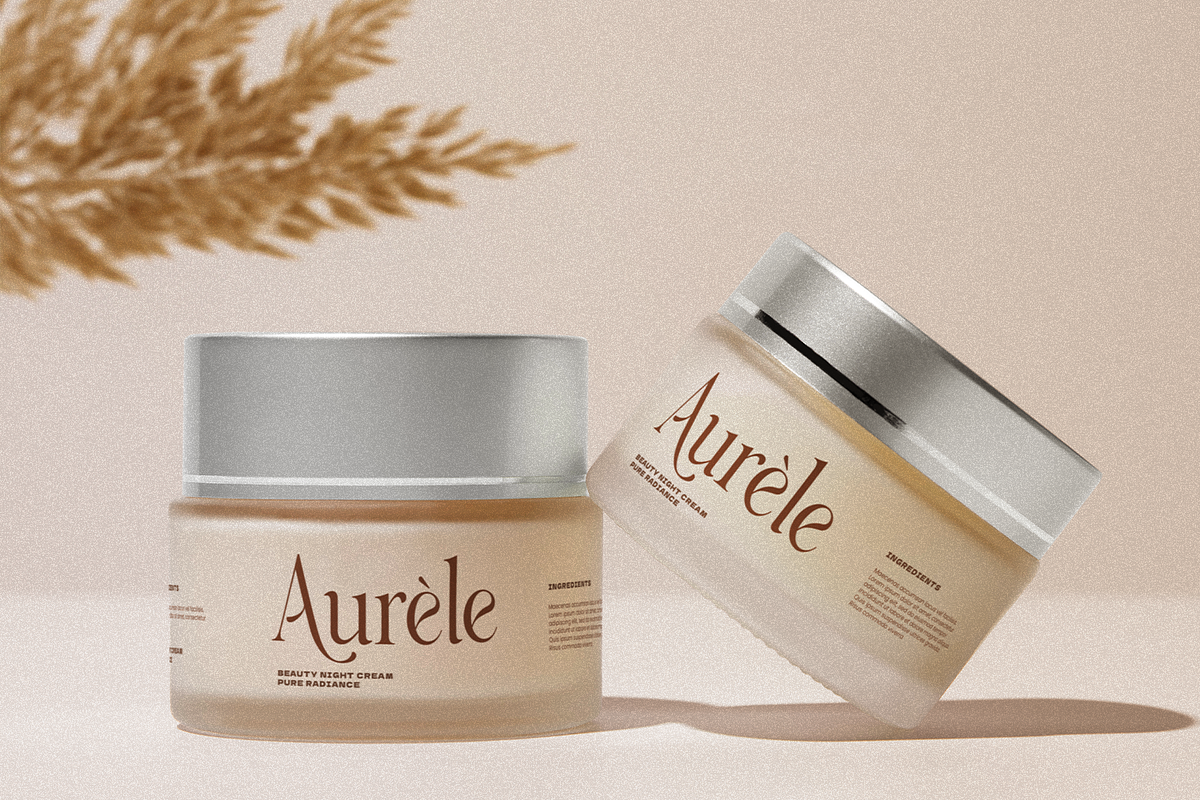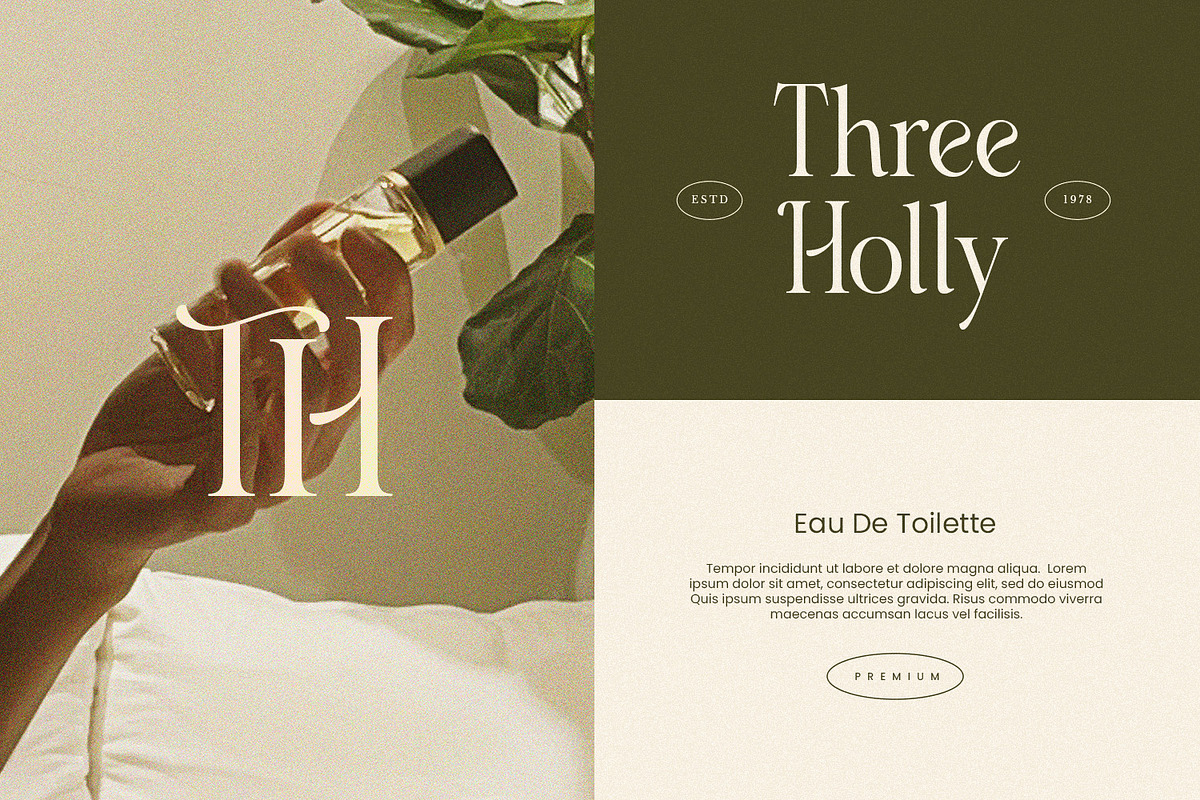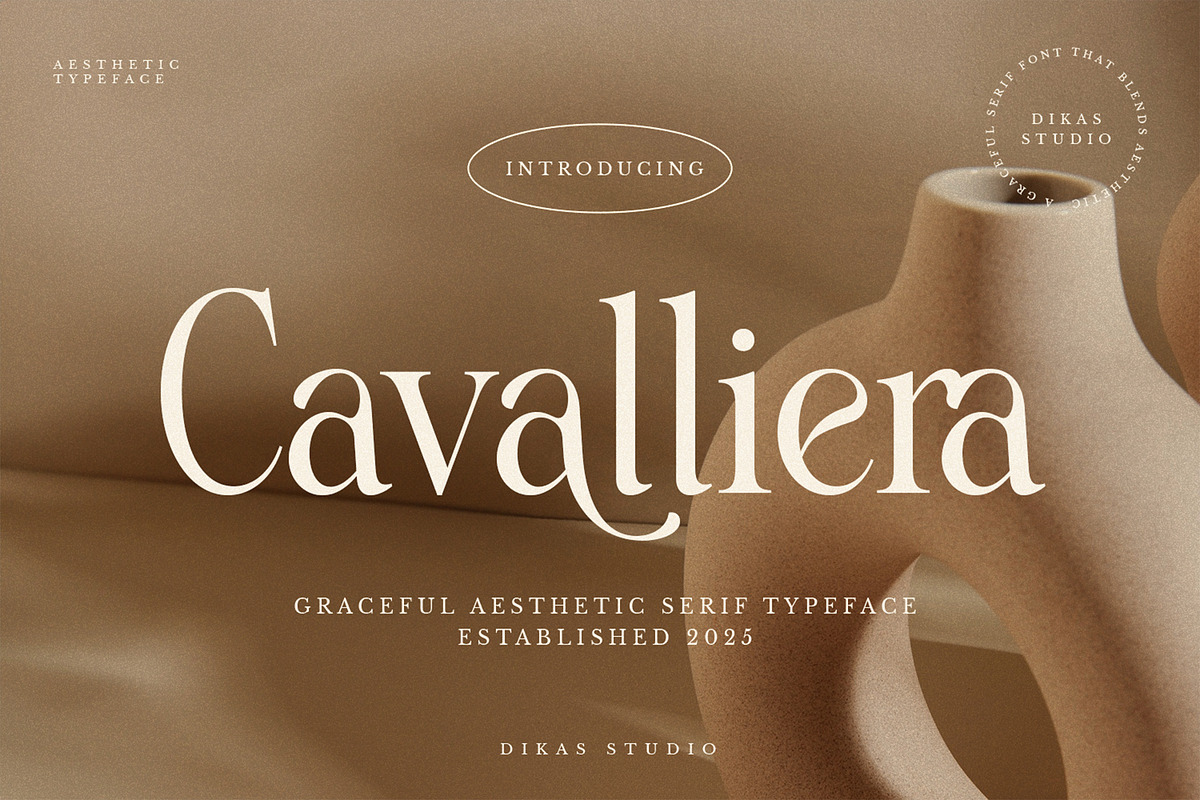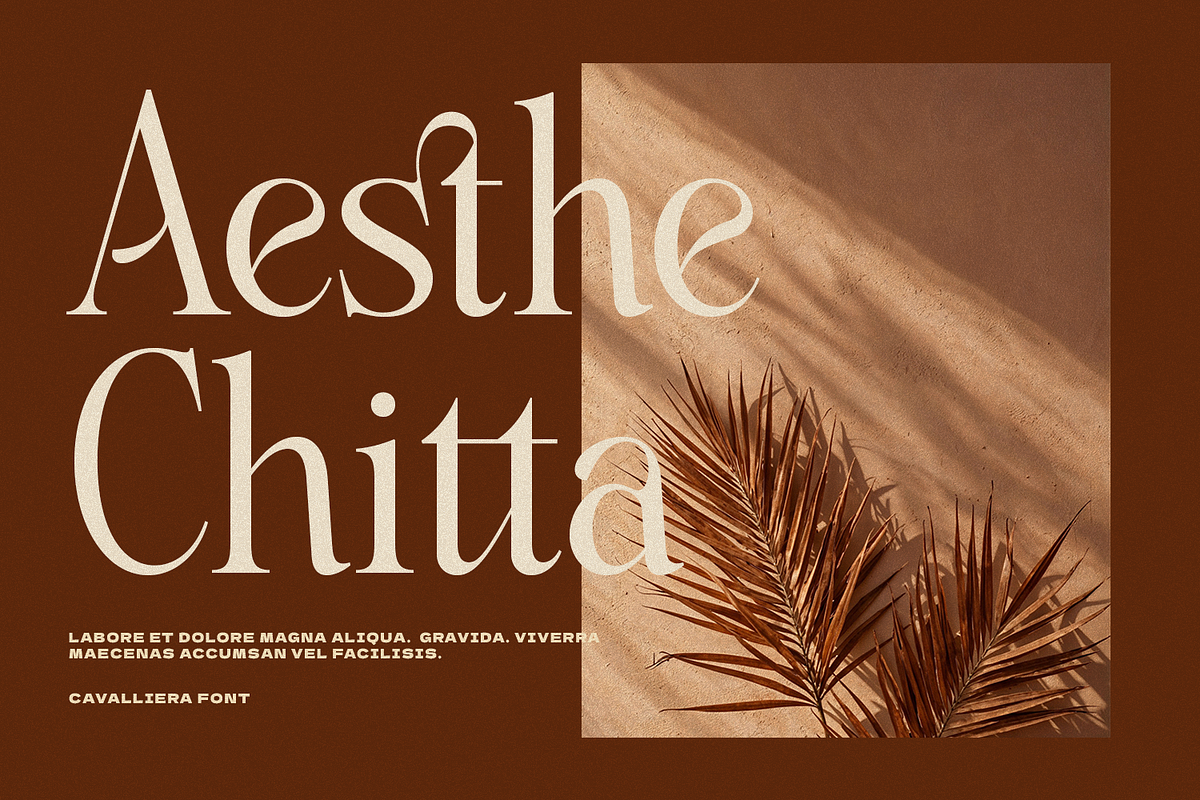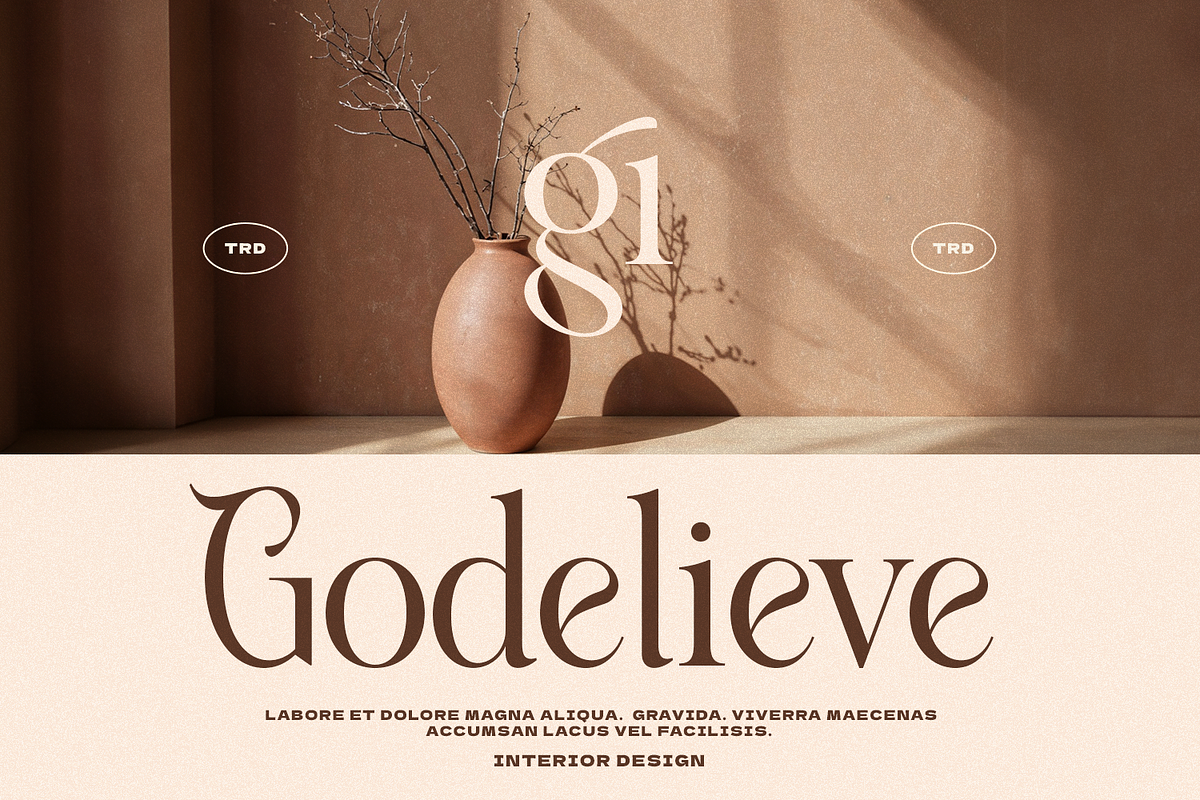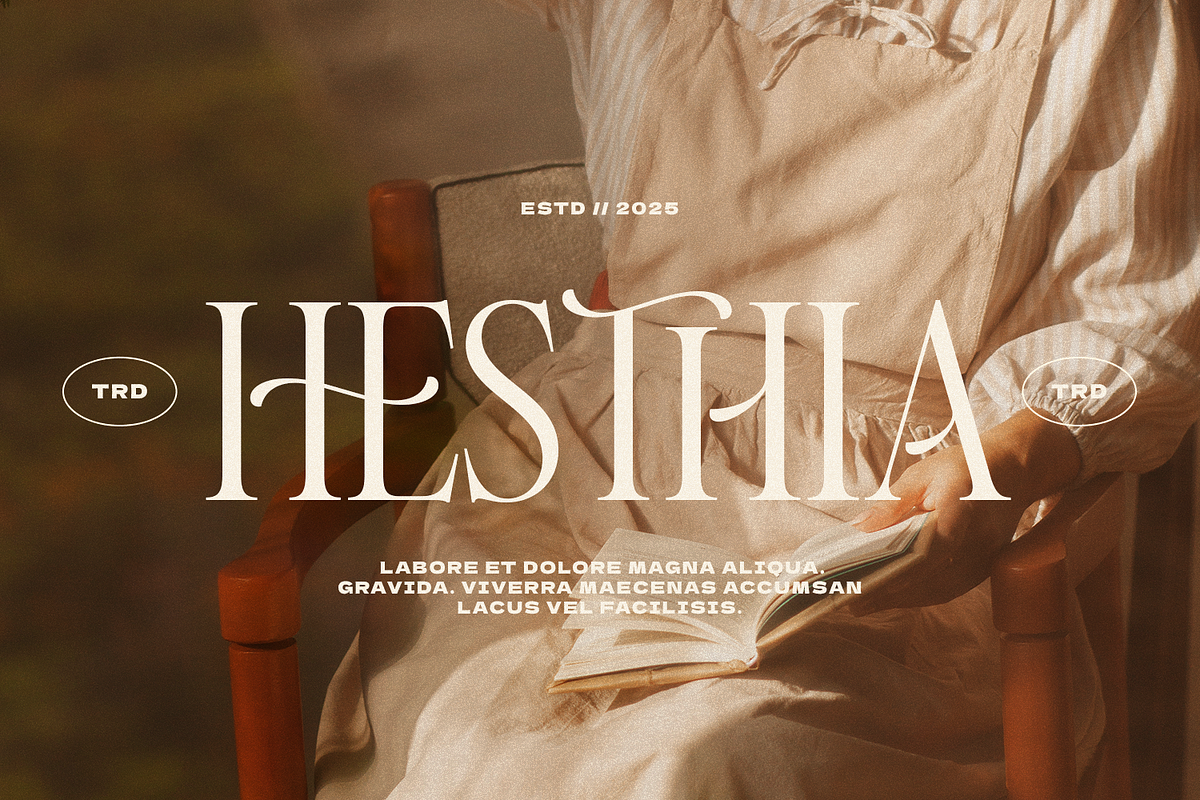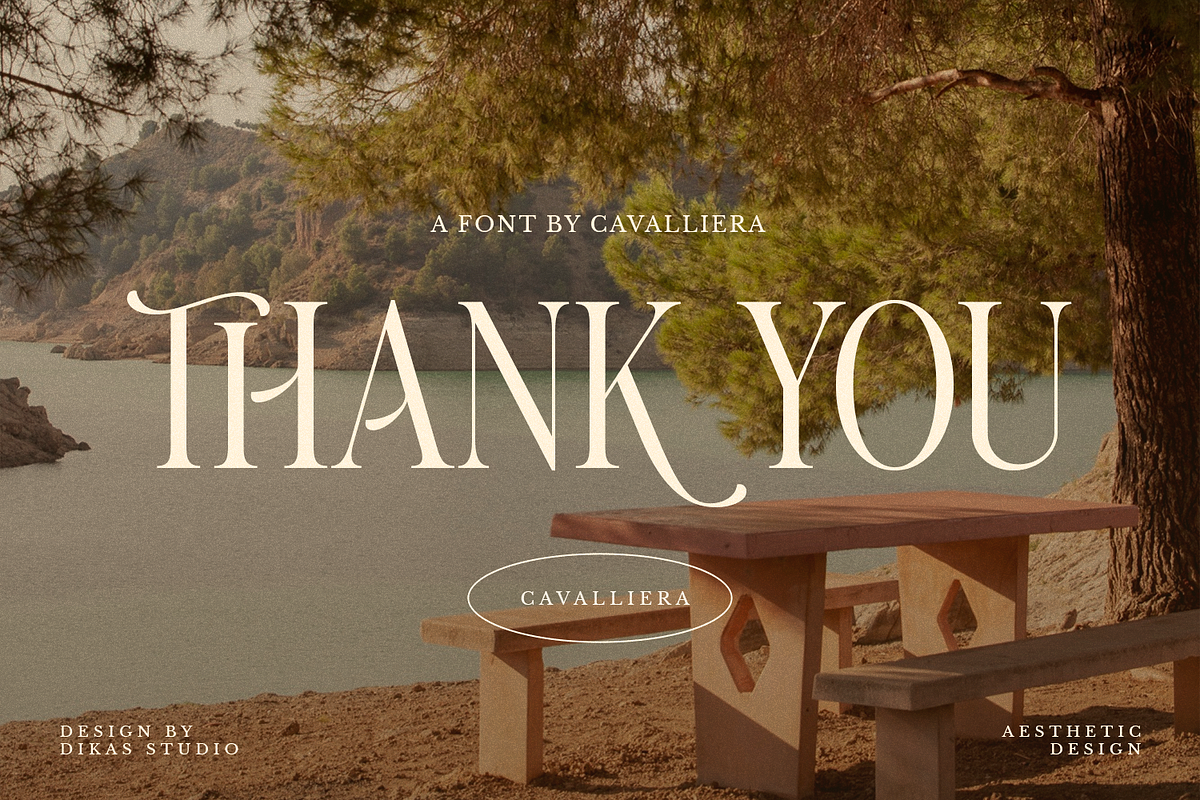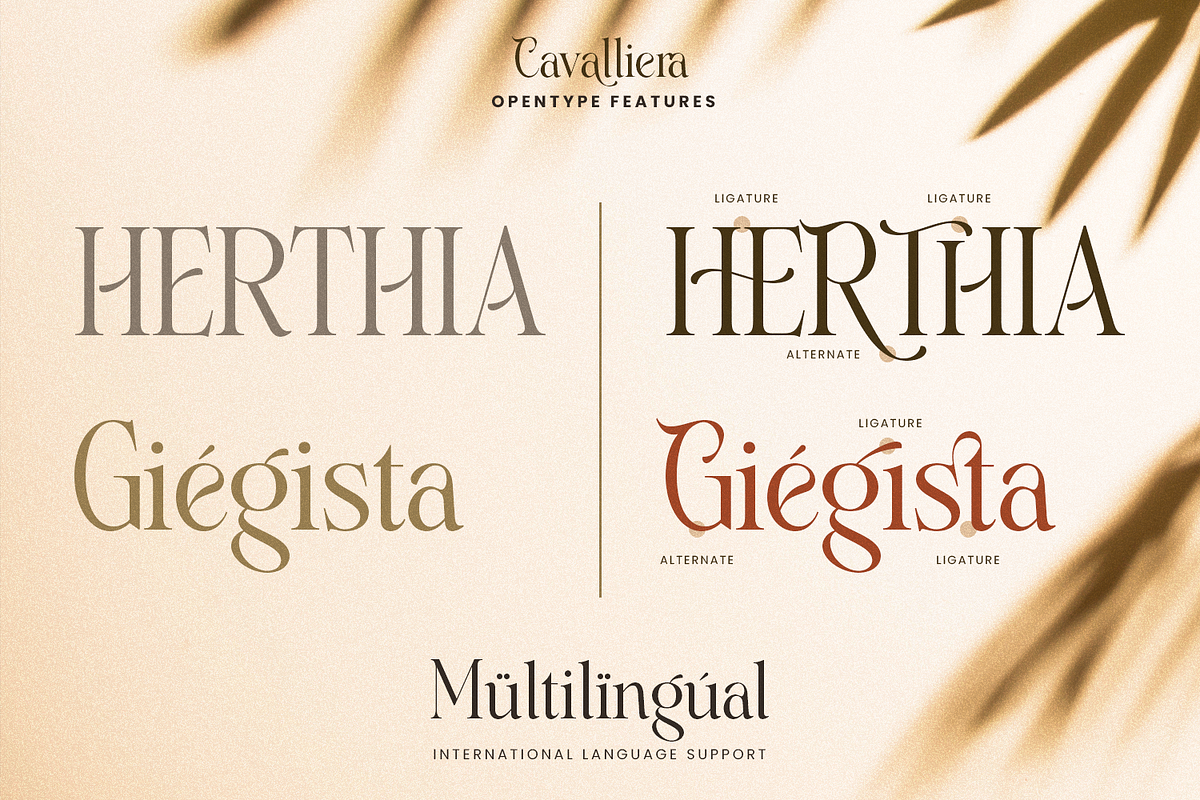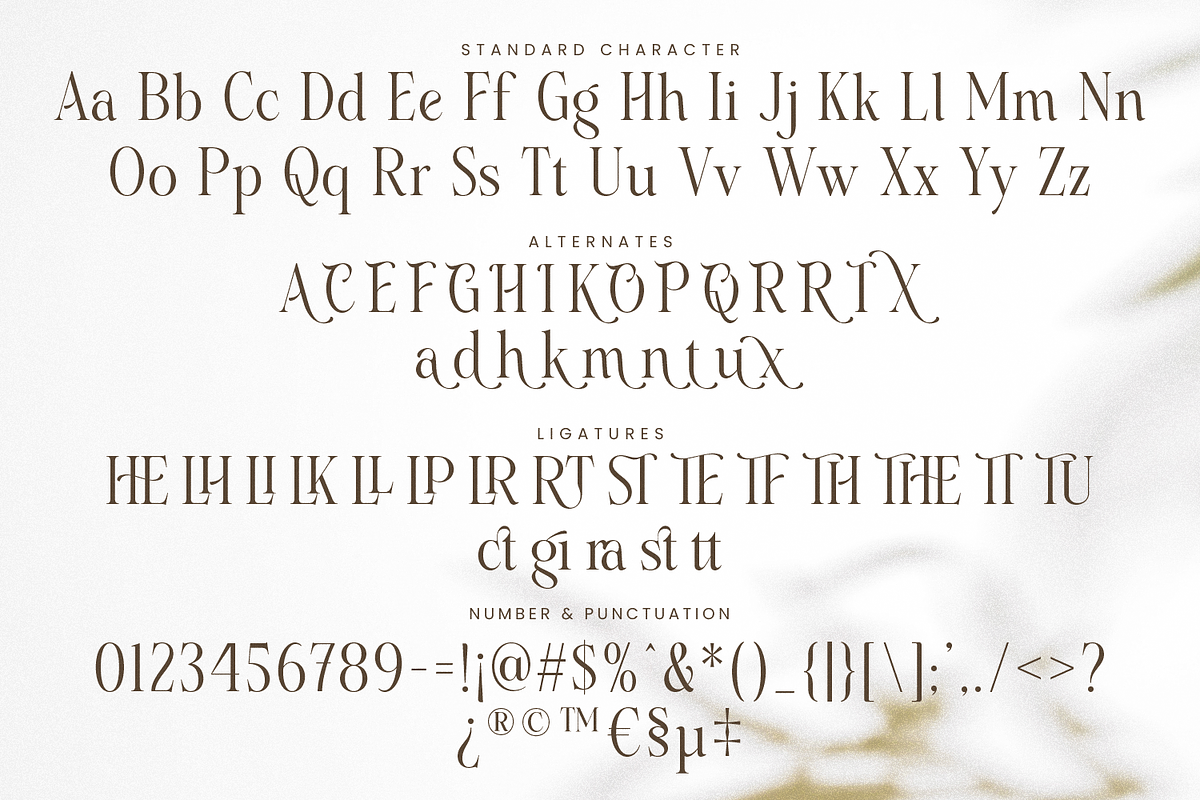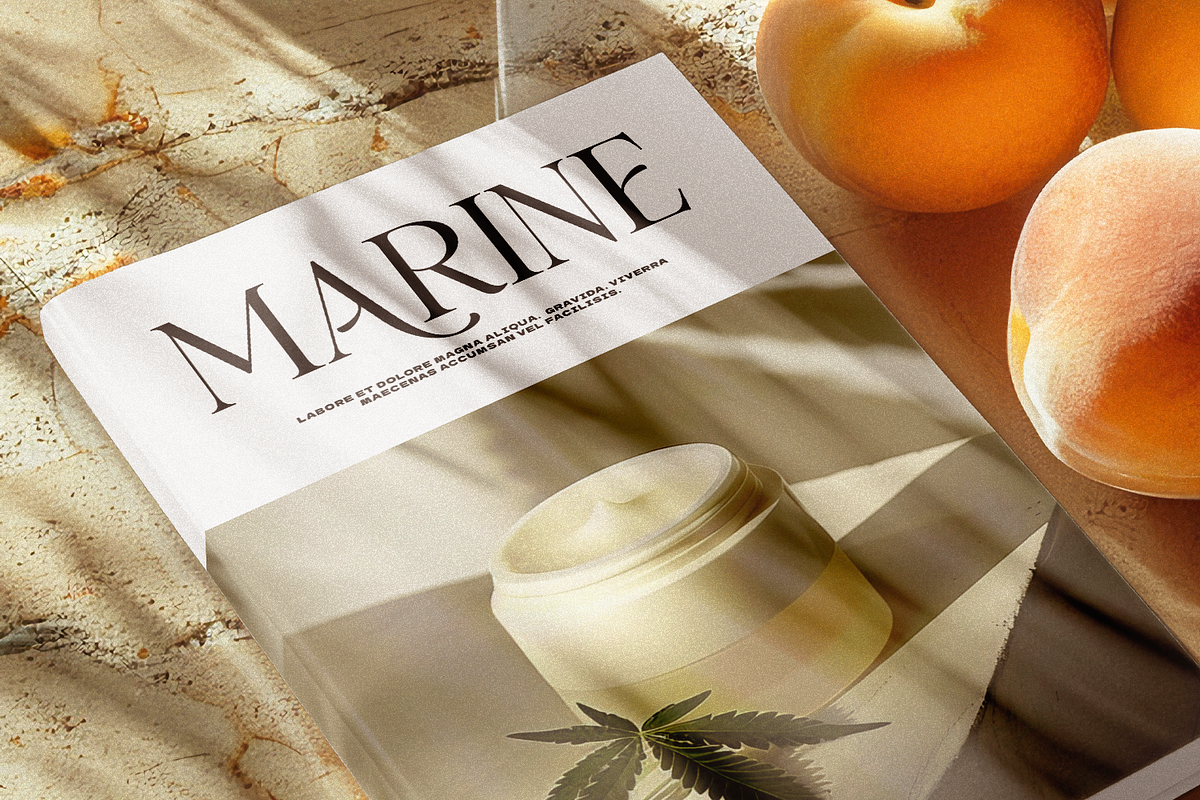
Cavalliera - Graceful Serif Typeface
Cavalliera is a graceful serif font that radiates elegance and beauty in every letterform. Designed with attention to detail, it features a wide range of alternate characters and stylish ligatures that add a refined, aesthetic touch to your typography. Whether you're working on branding, editorial, wedding designs, or high-end packaging, Cavalliera brings timeless charm and sophistication to your projects.
Punctuation & Number
Multilingual Language
Alternate Character
Ligature